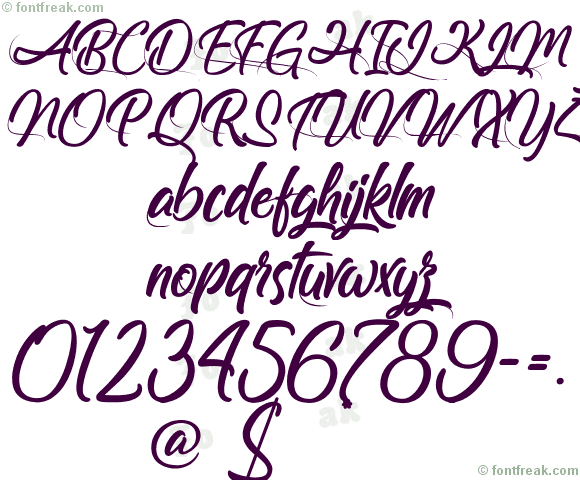
The Follow Me font by Suthi Srisopha is an exquisite script typeface that beautifully blends elegance with a modern touch. This font is characterized by its fluid strokes and varying stroke weights, giving it a dynamic and inviting appearance. The graceful curves and loops create a sense of movement, while the slightly condensed spacing enhances readability, making it perfect for a range of design applications. Follow Me is a decorative font that stands out with its charming flourishes, adding a personal and artistic flair to any project.
Ideal for wedding invitations, Follow Me brings a romantic and sophisticated vibe to love-themed events. Its enchanting style can also elevate movie posters, providing a touch of drama and allure that captures attention. For restaurant menus, this font adds a warm and inviting feel, enticing diners with its stylish presentation. Additionally, content creators can leverage the Follow Me font for branding materials, social media graphics, or blog headings, making their visuals more appealing and engaging.
What sets the Follow Me font apart is its unique ability to balance elegance and approachability. Whether used in formal invitations or casual social media graphics, it conveys a sense of authenticity and style. With the Follow Me font free download, you can effortlessly elevate your design projects, making them not just visually stunning but also memorable.